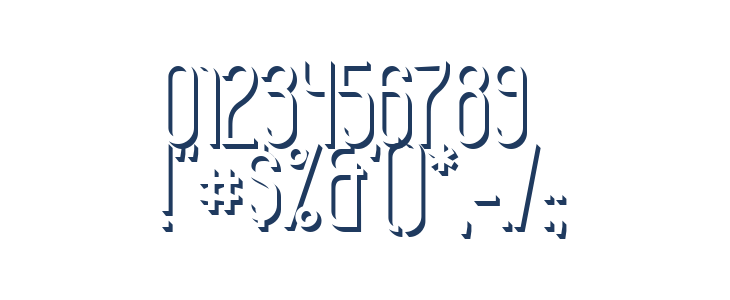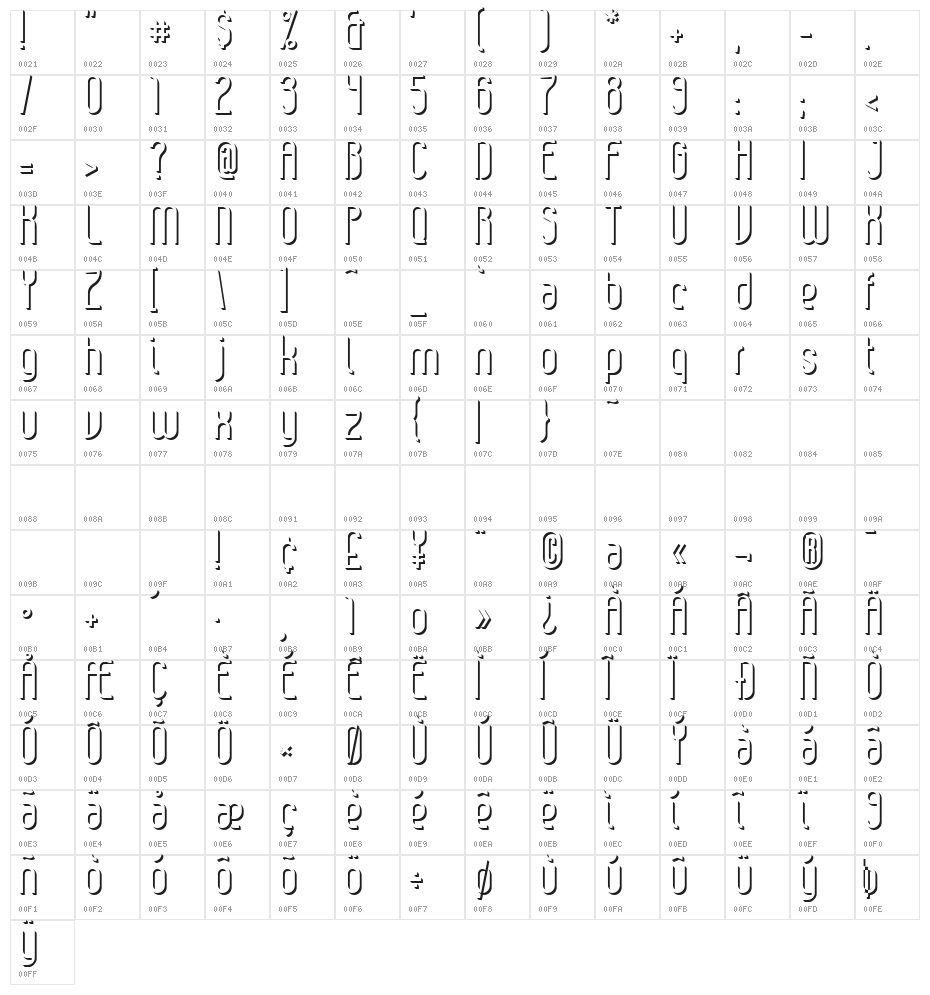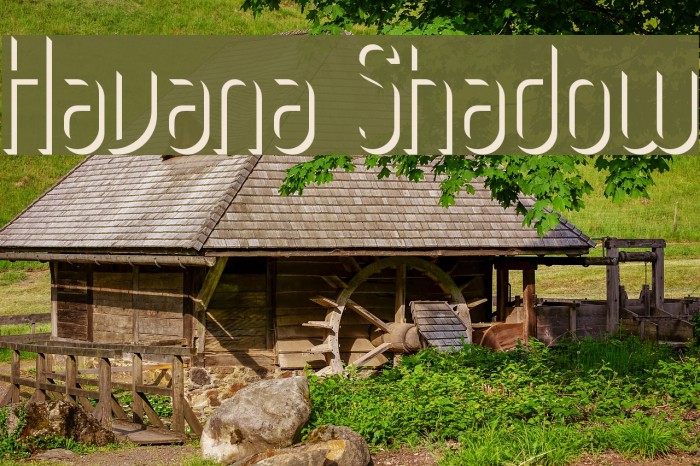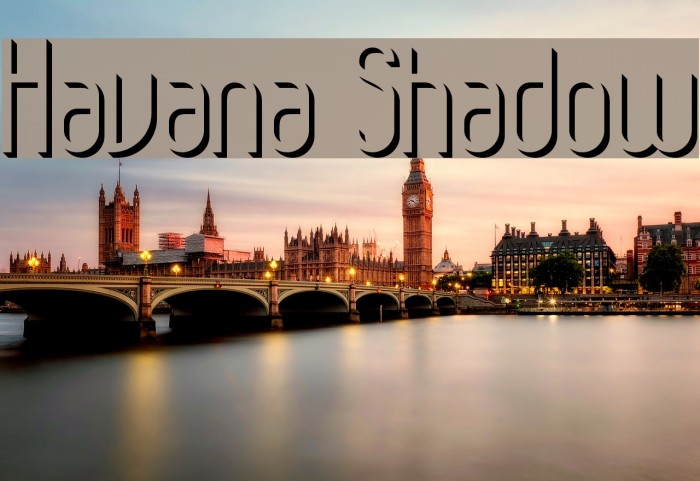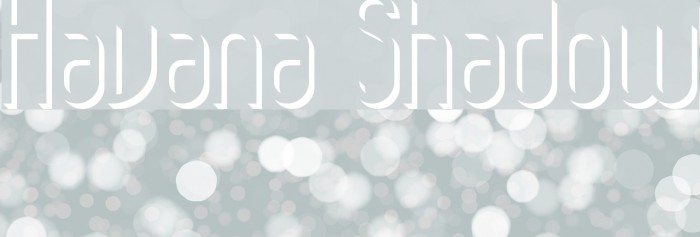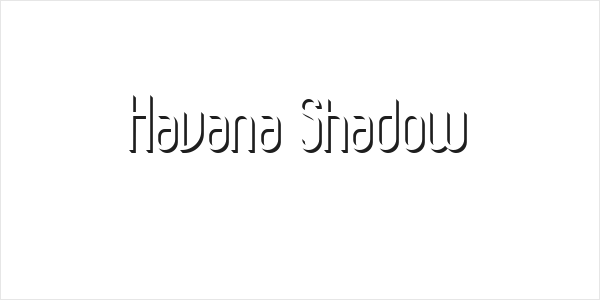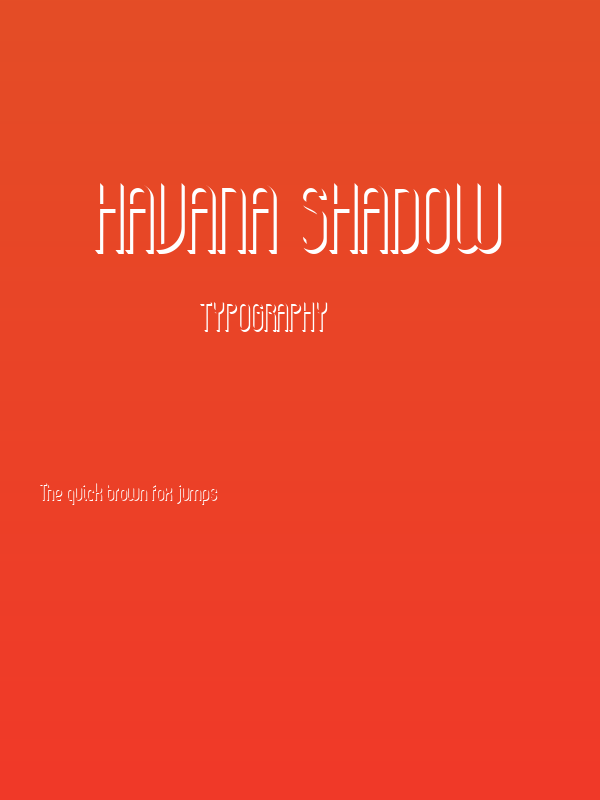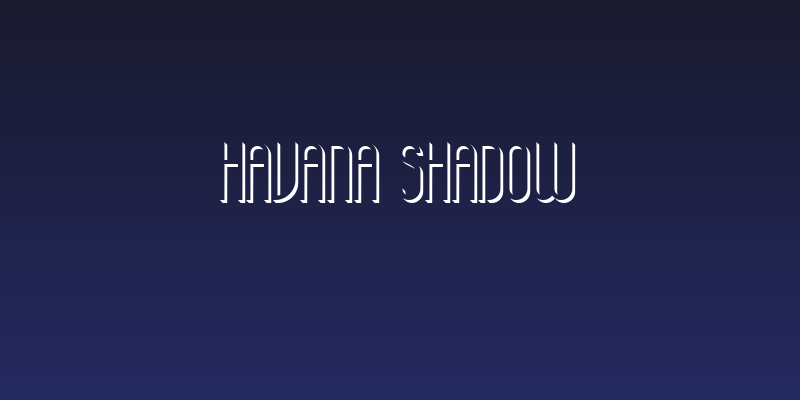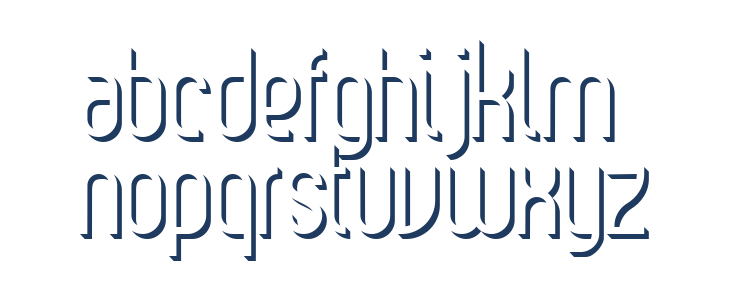
Havana Shadow Font
Havana Shadow Description
This font features a distinctive shadow effect that gives it a three-dimensional appearance. The characters are tall and narrow, with a modern and sleek design. The uppercase and lowercase letters maintain a consistent style, with sharp angles and clean lines. The numbers and special characters follow the same aesthetic, making the font cohesive and visually appealing. The shadow effect adds depth, making it suitable for eye-catching designs. The overall look is contemporary and stylish, perfect for projects that require a bold statement.
| Proposed Projects | Ideal for posters, headlines, branding, and any design needing a striking, modern look. |